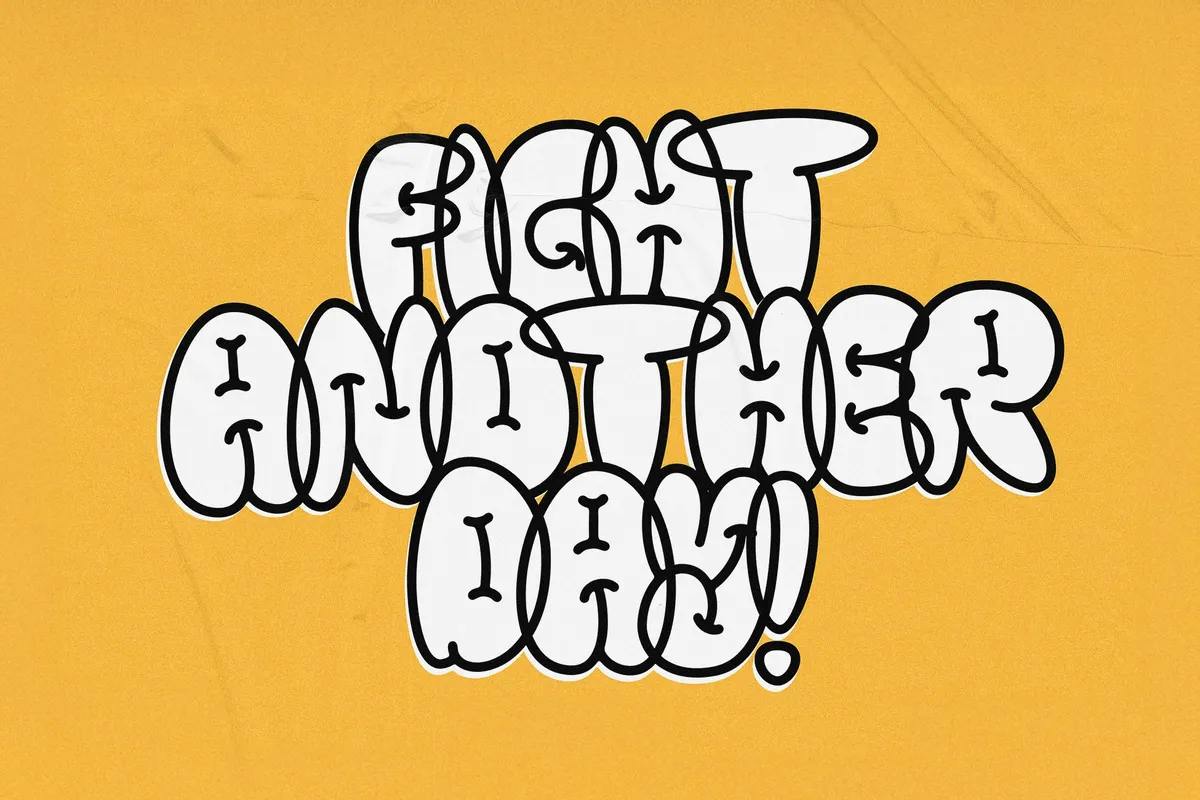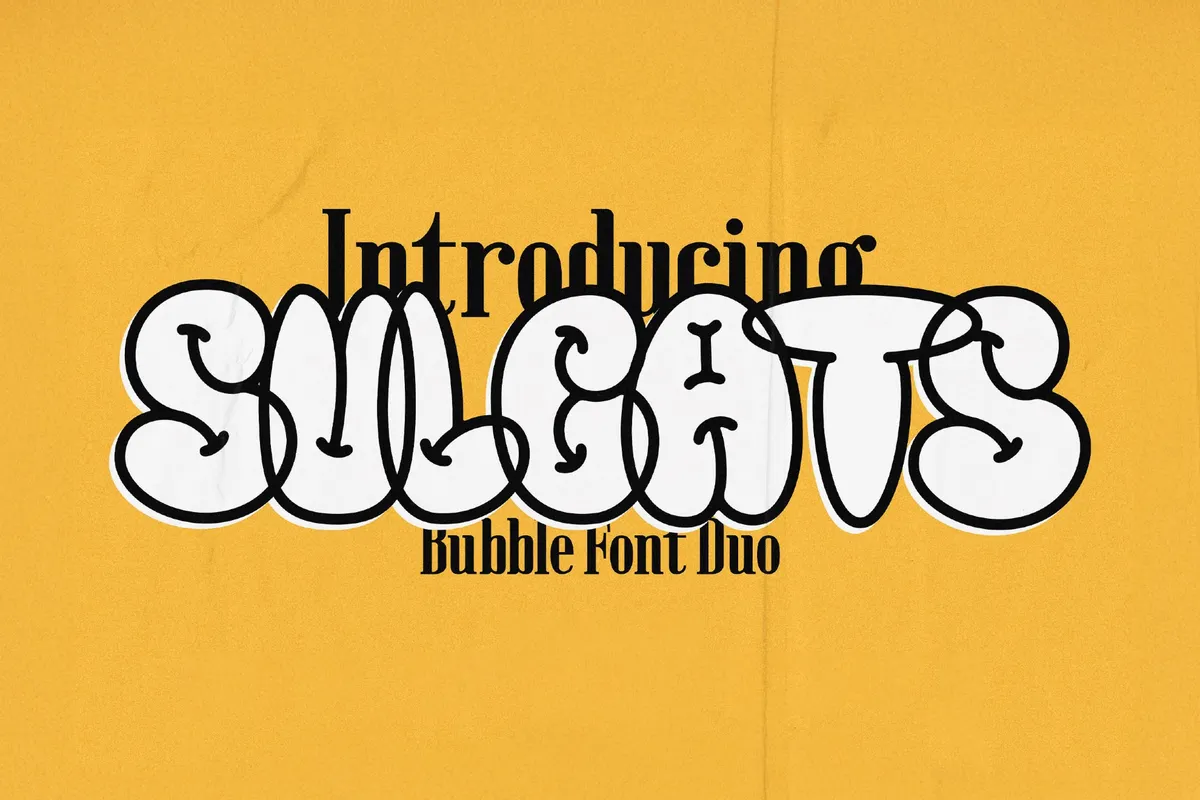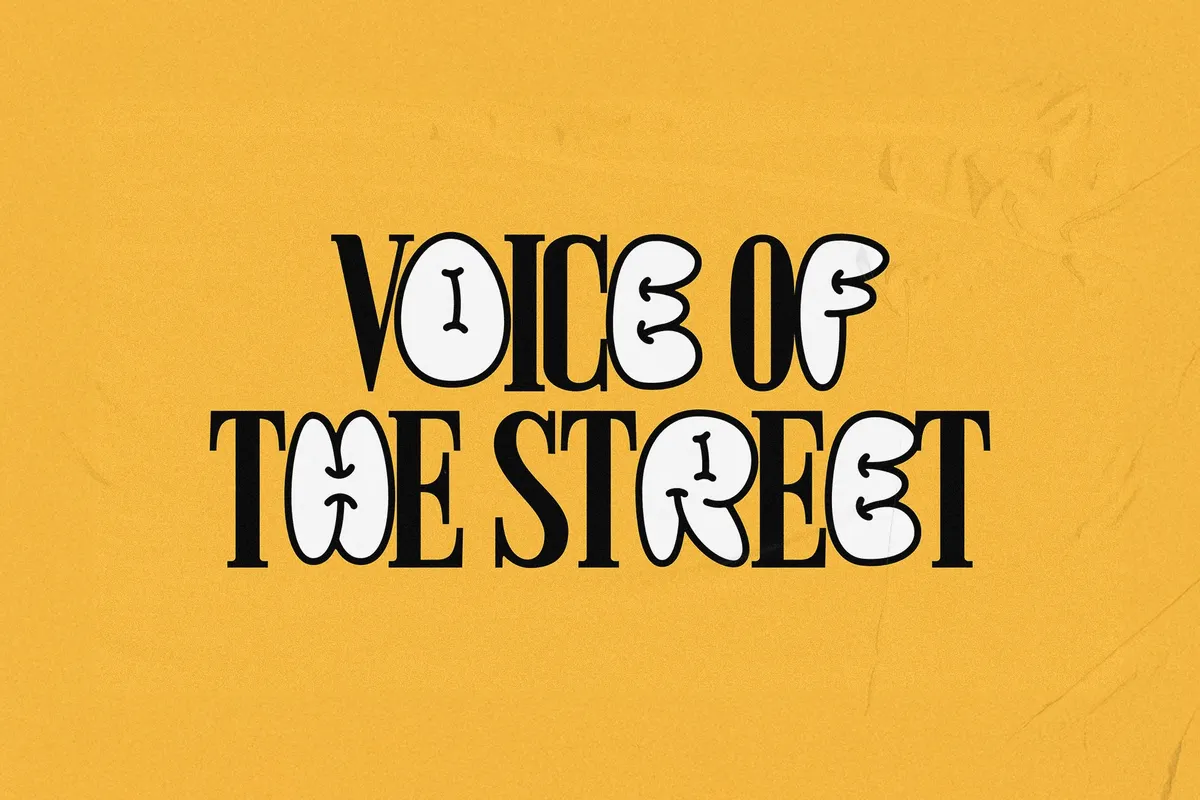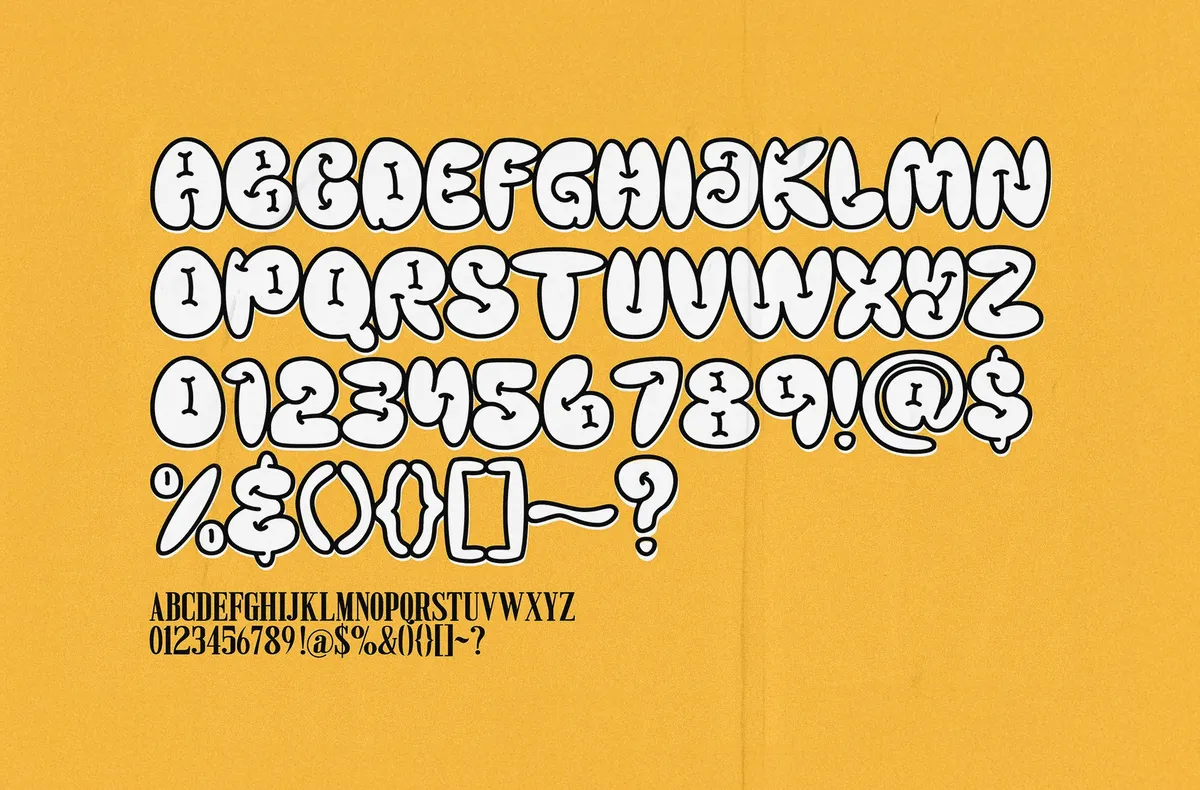
Sulcats - Bubble Font Duo
Sulcatsfilled
Sulcats
POSTRESS
Sulcats is a bold bubble font duo that pairs two complete alphabets in one bundle: a chunky, inflated block-letter base and a hollow outline twin built on the same letterforms. Every I carries a second, decorative layer too, a bone-shaped mark standing in for the plain tittle across the whole set. A slim serif companion, POSTRESS, rounds out the trio for captions and fine print.
Use it for streetwear graphics, branding and logotypes, gig posters and flyers, sticker packs, and social campaign graphics where the filled letters need to sit next to something looser.
- signature bone-shaped dot on every I.